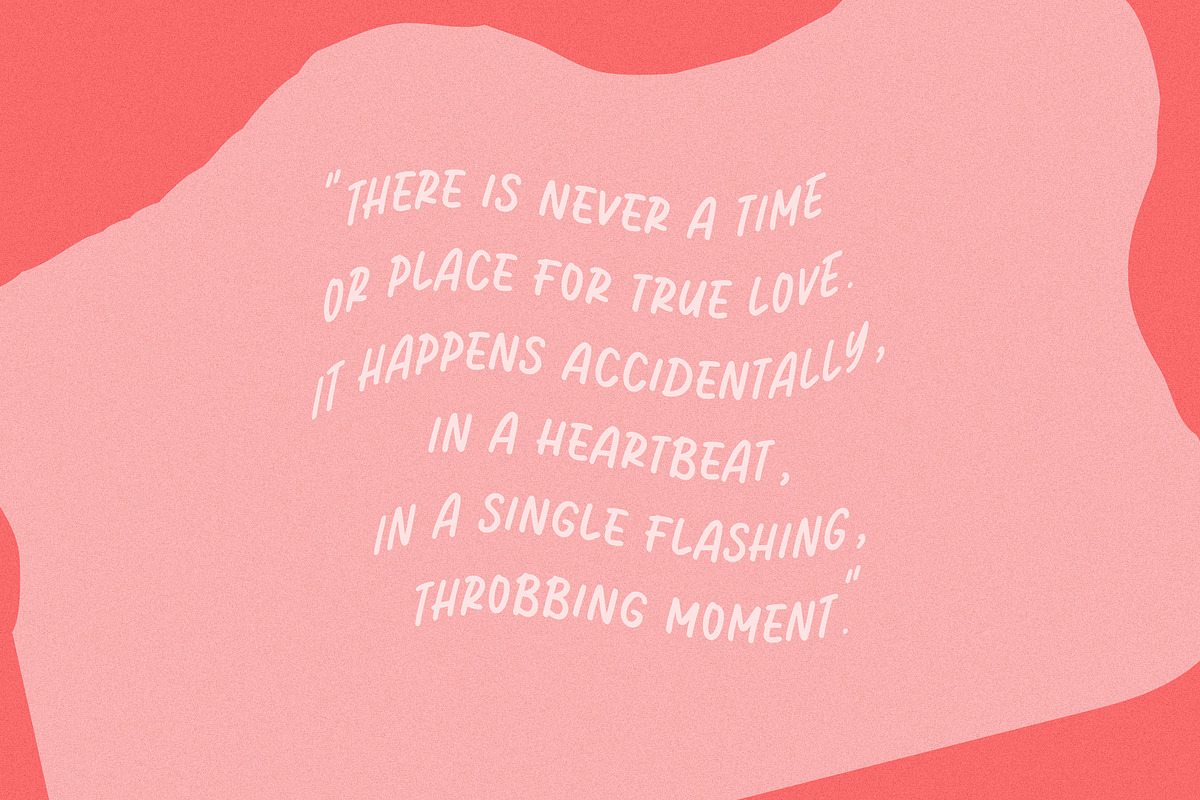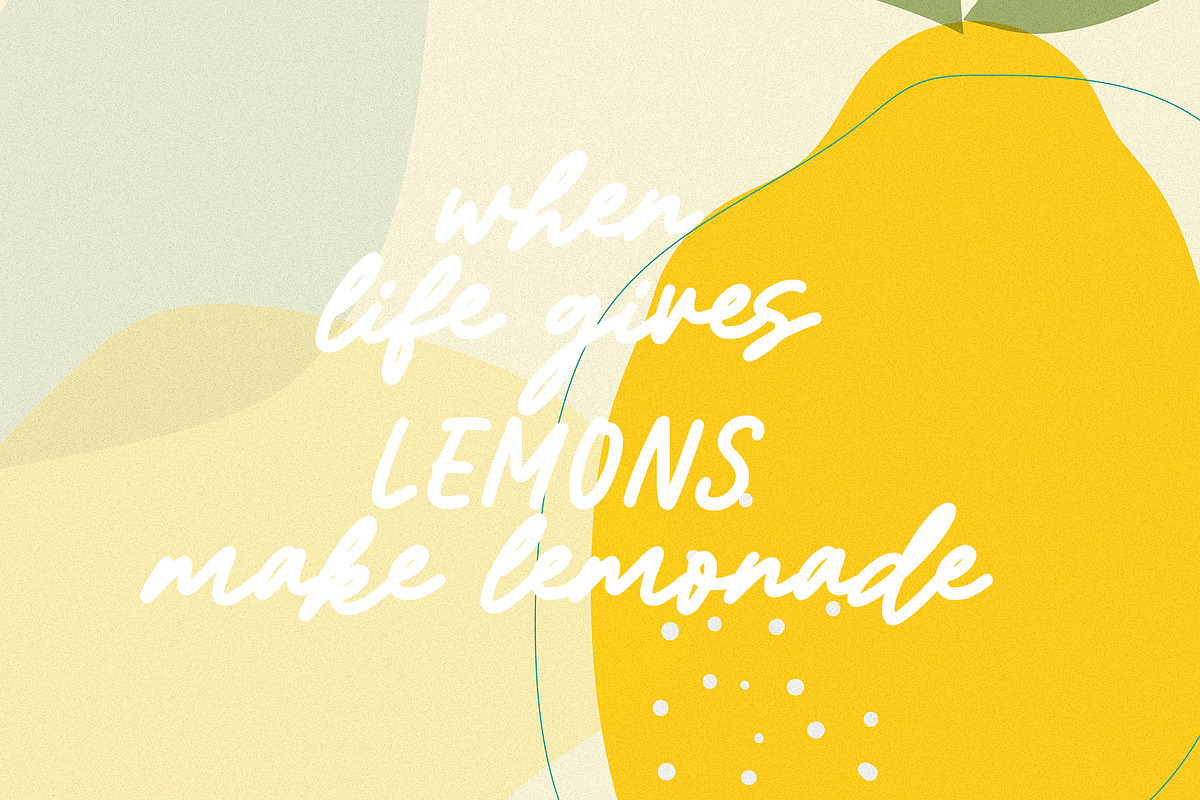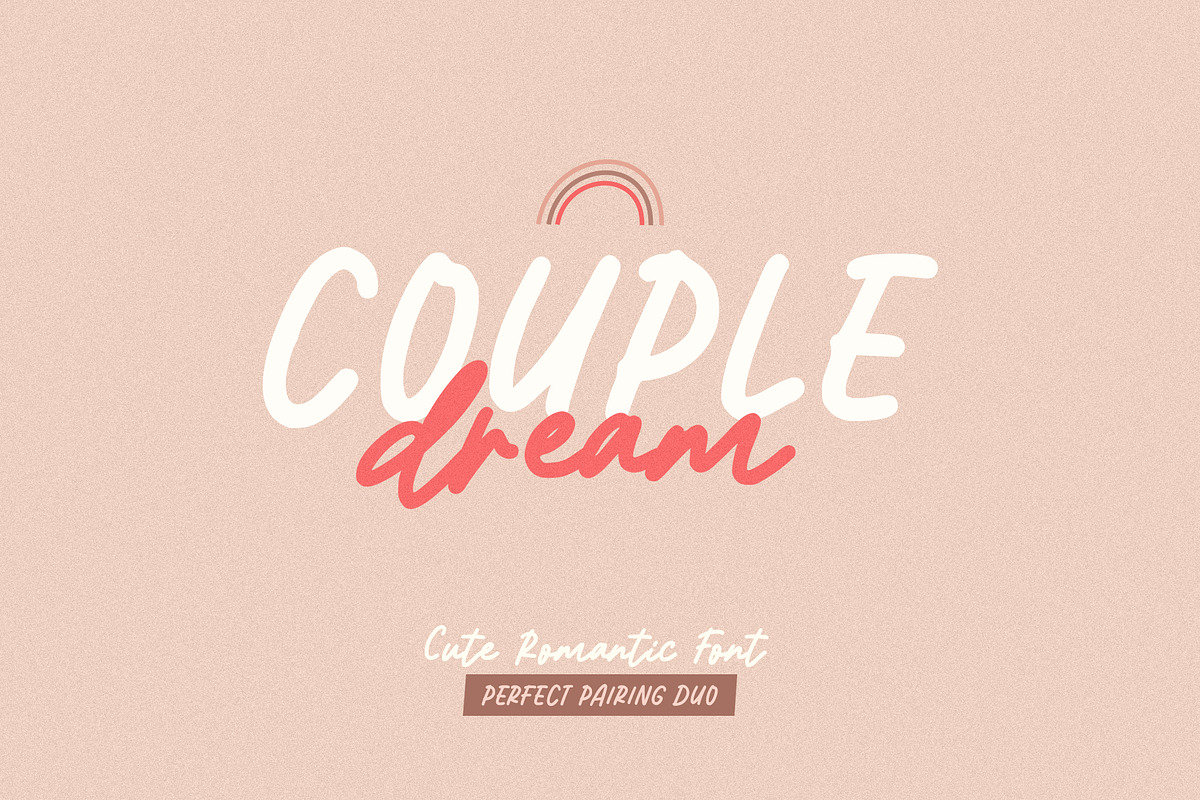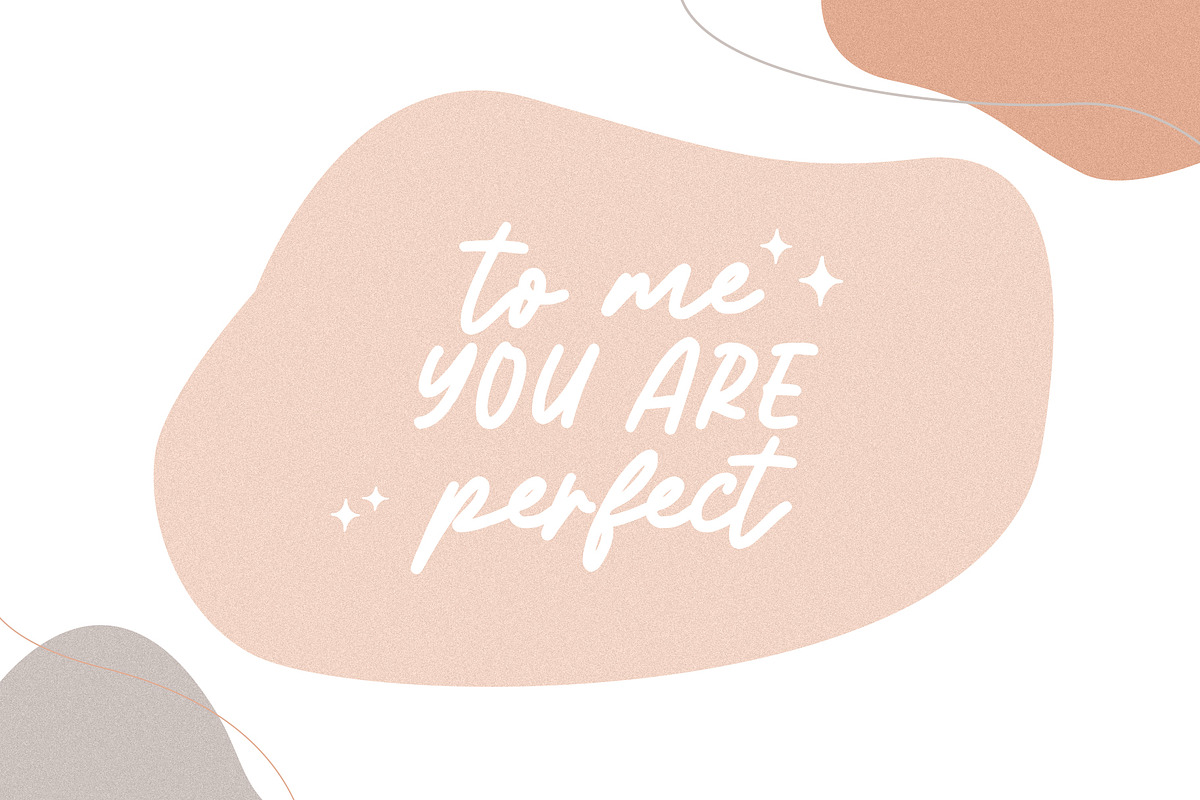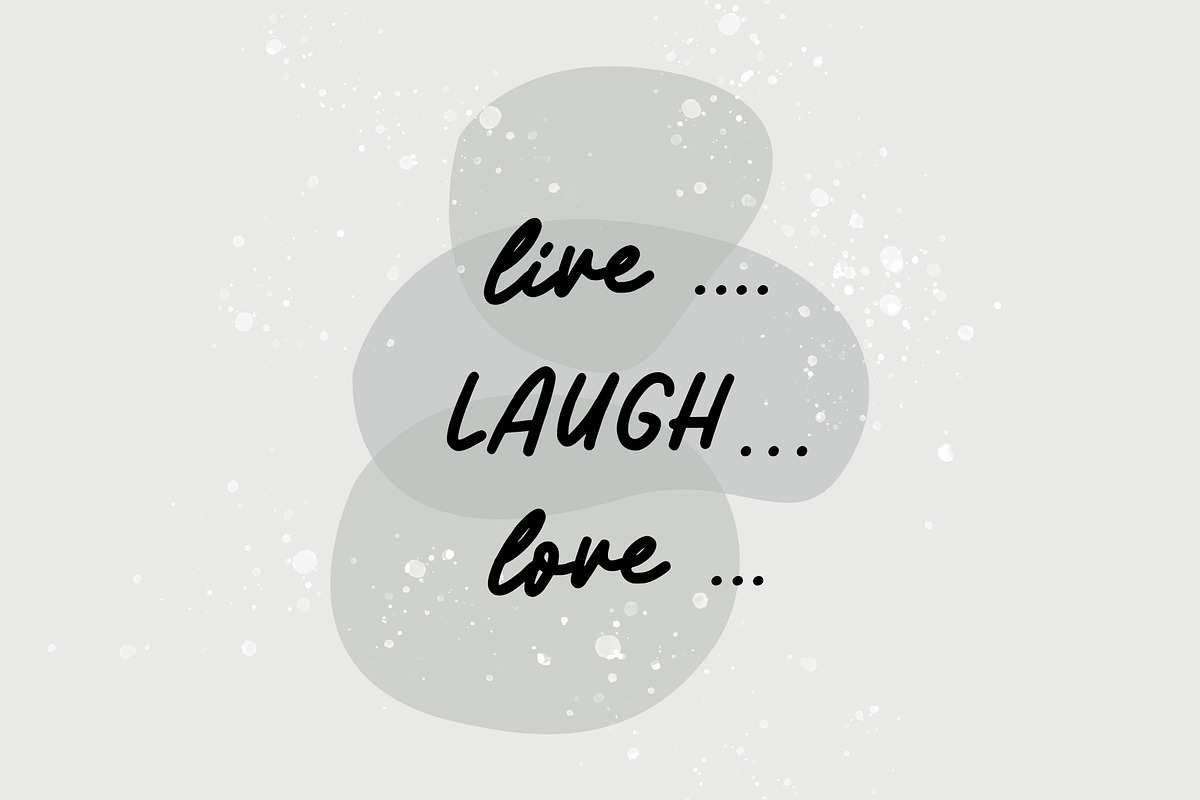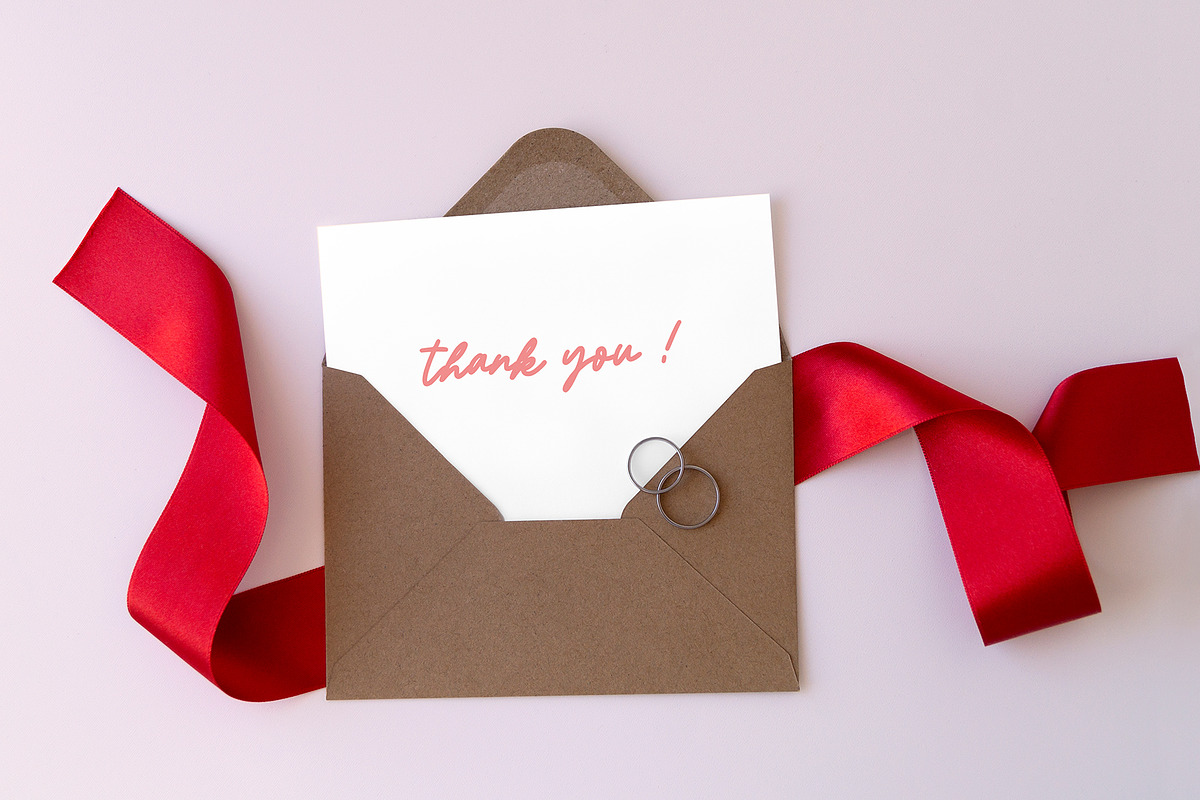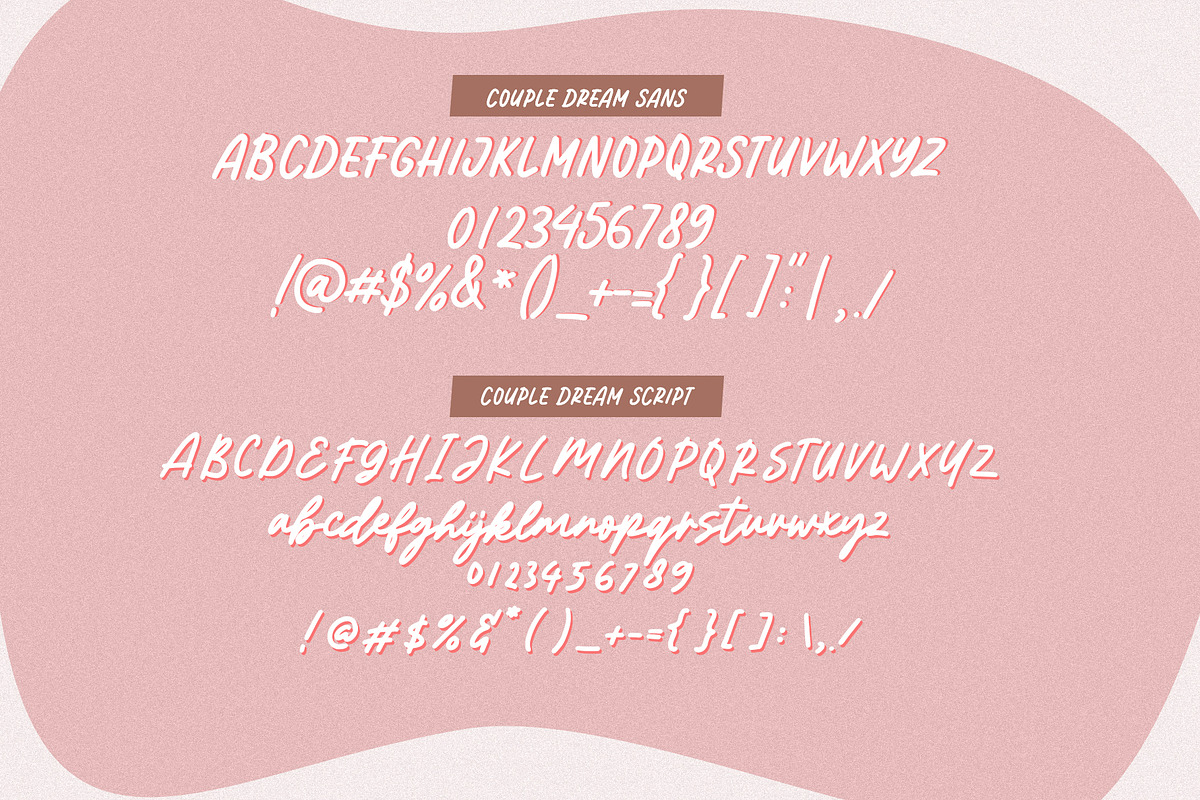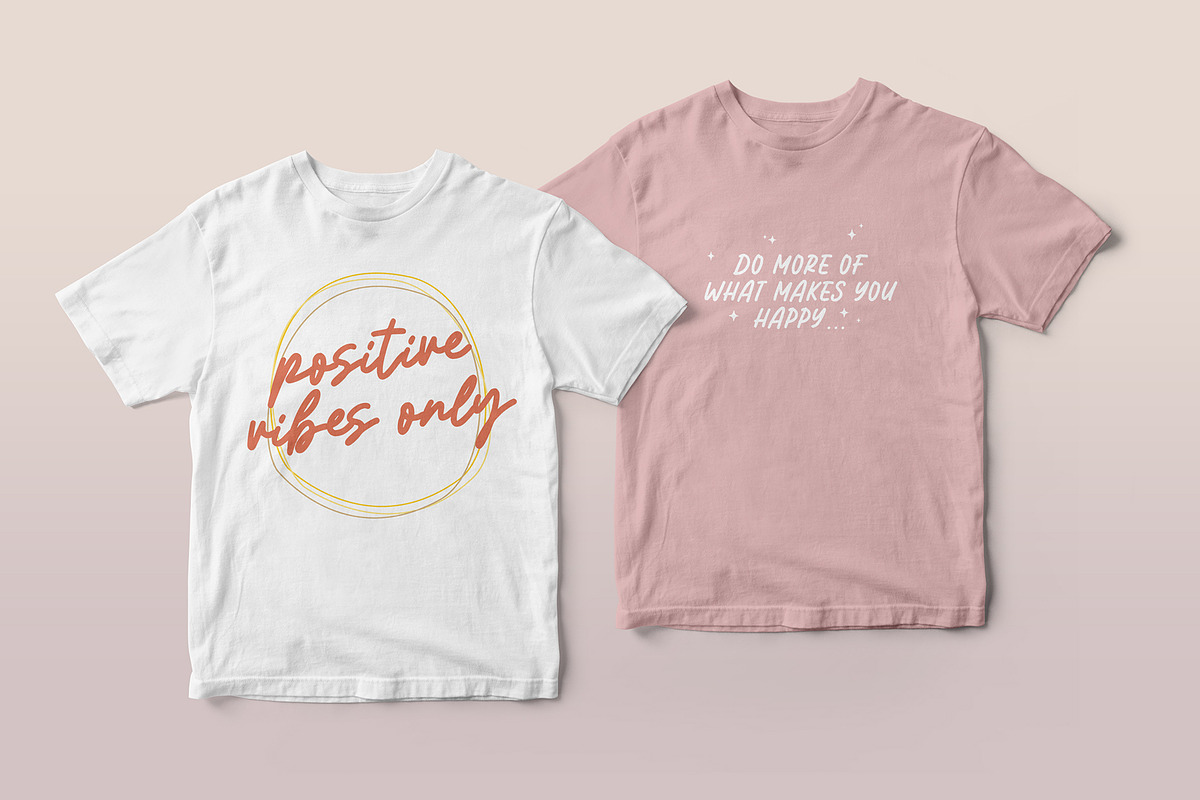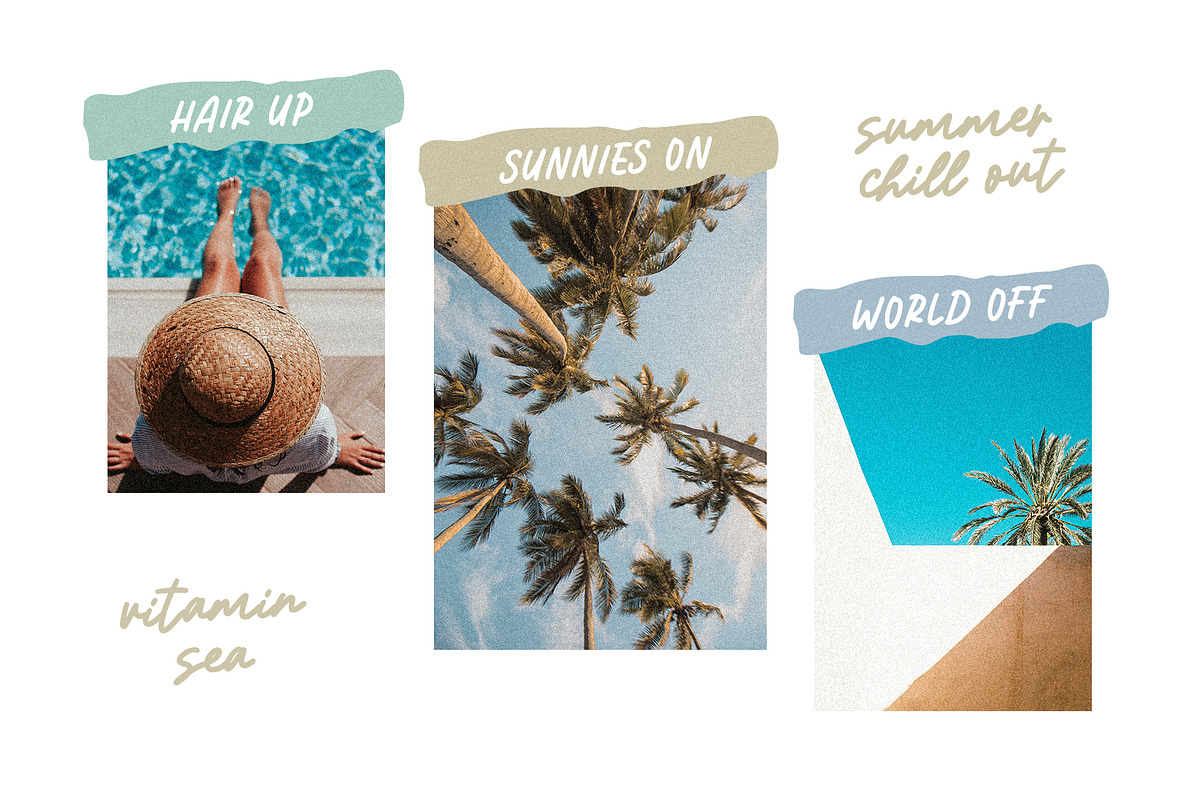
Couple Dream - Font Duo
Couple Dream is a cute pairing font duo, perfect for quotes, greeting cards, books, papercraft, daily notes, or anything that requires natural handwriting looks.